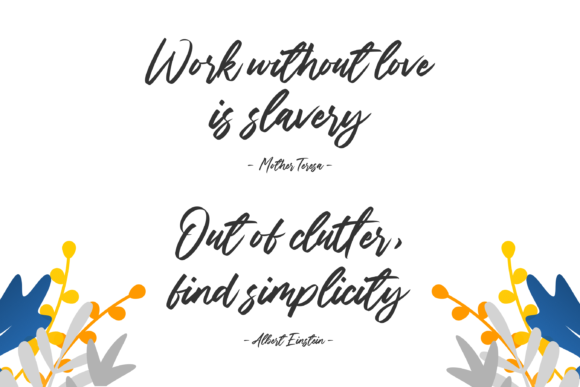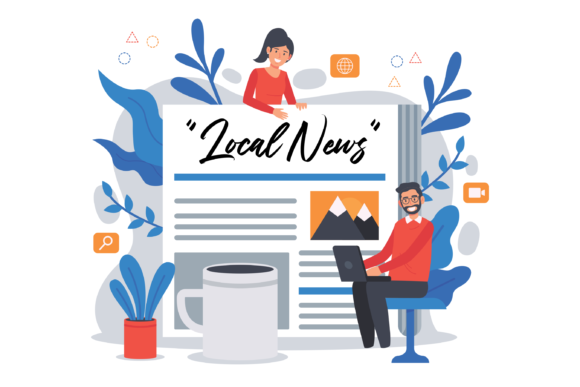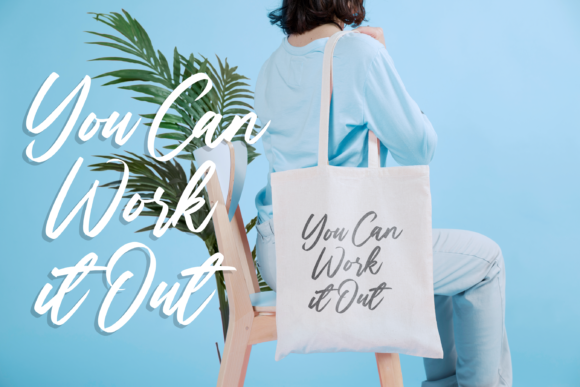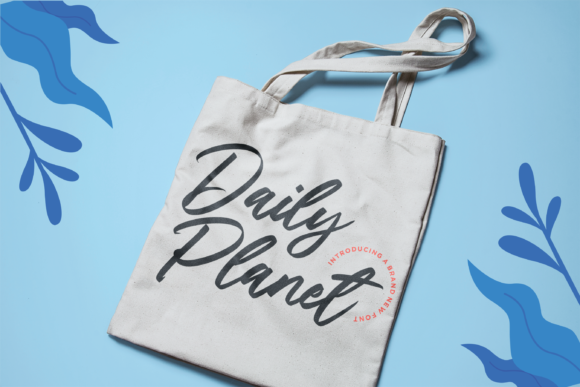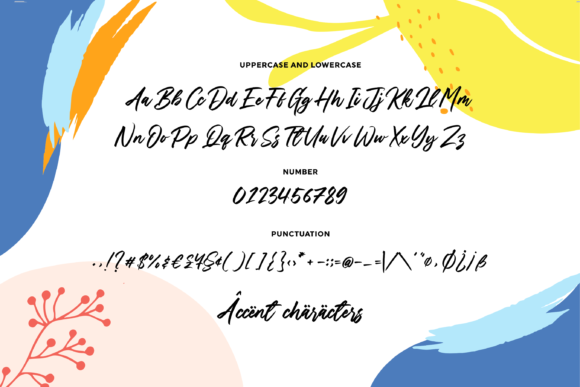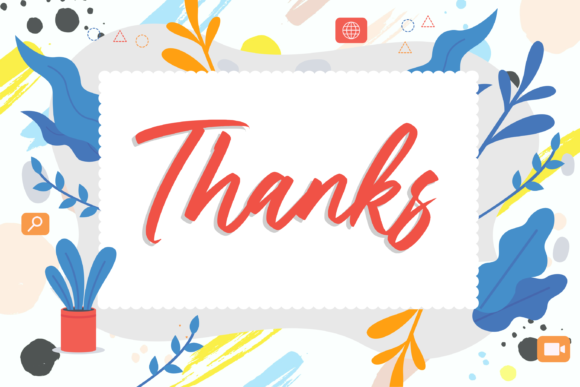
Daily Planet Font
About Daily Planet Font
Daily Planet results out of a stunning pairing of a brush pen and pencil that makes it look incredibly endearing and authentic. Use this gorgeous and unique handwritten font to bring any DIY project to life!